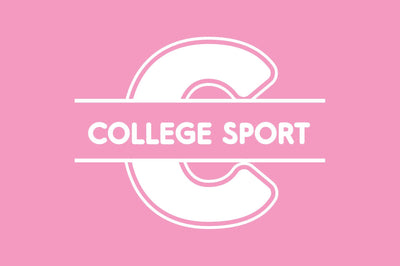
College Sport Split Monogram Font
College Sport Split Monogram Font.
College Sport Split Monogram is a bold and thick lettered decorative font. It is incredibly fitting for sporting or racing designs. Have fun with this beautiful font and explore its endless variations.